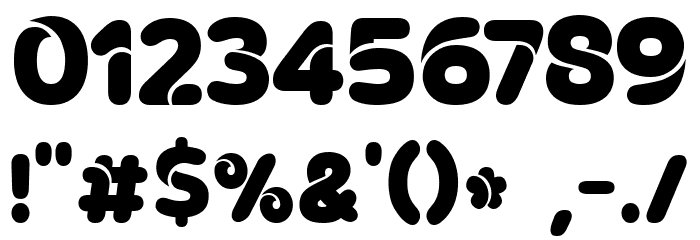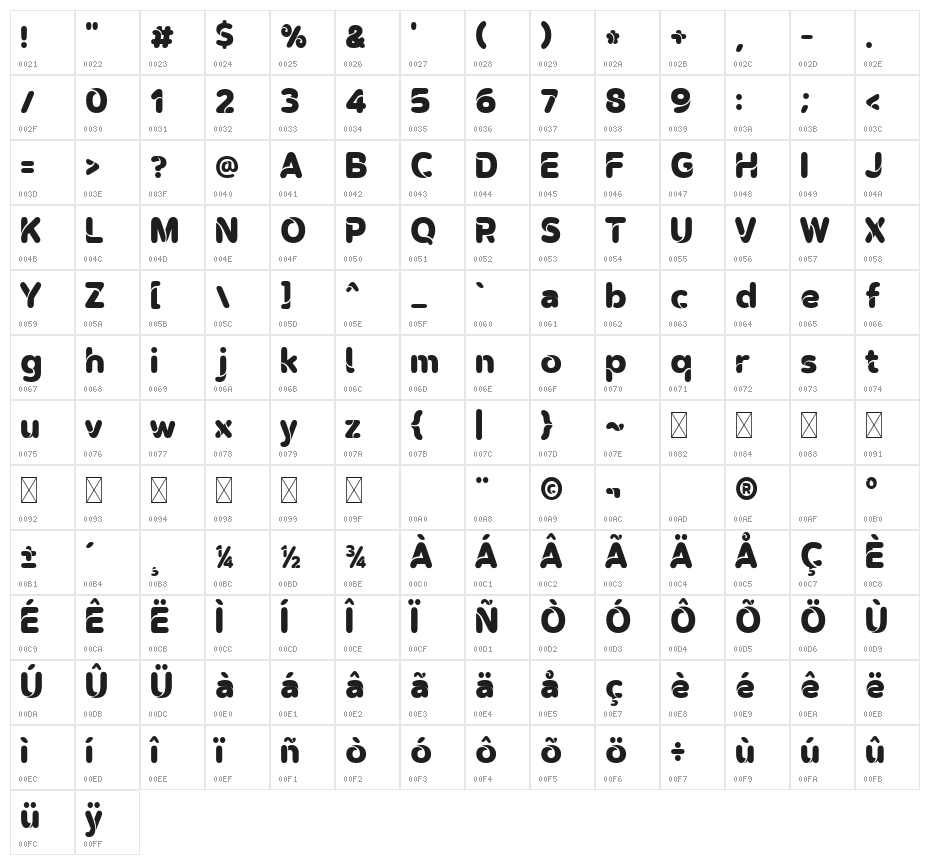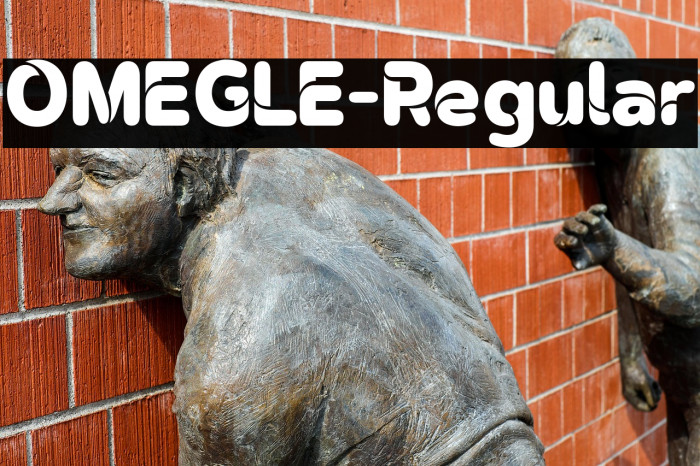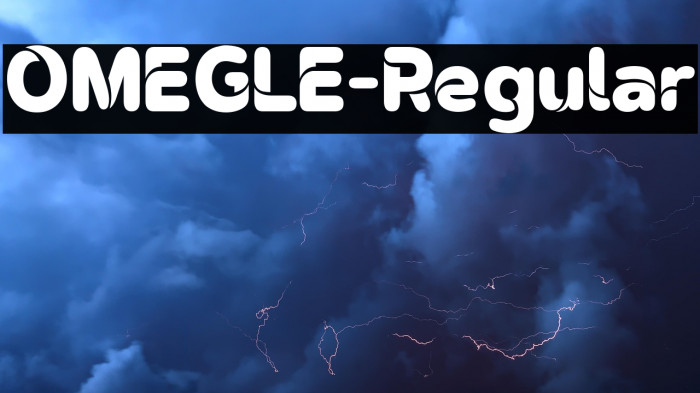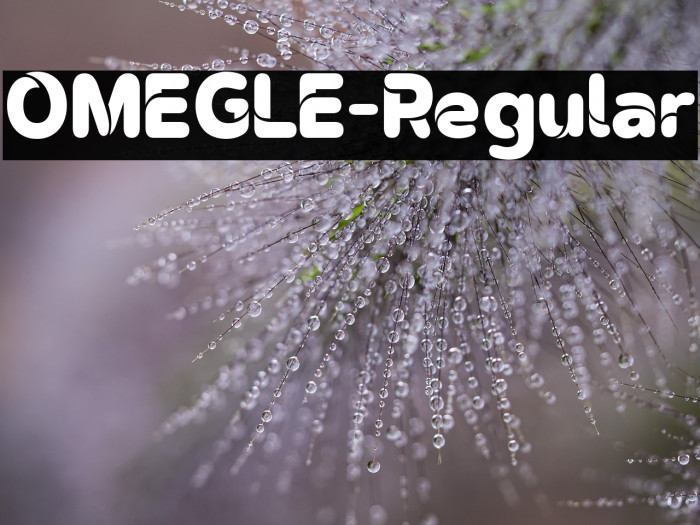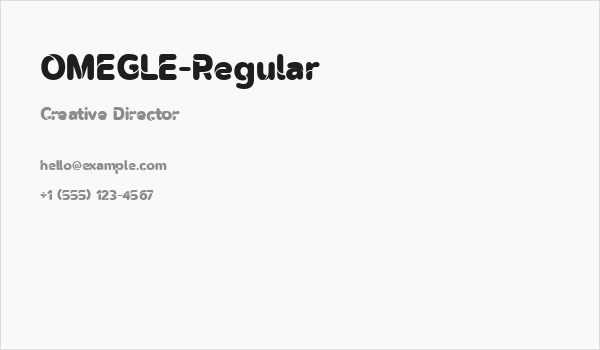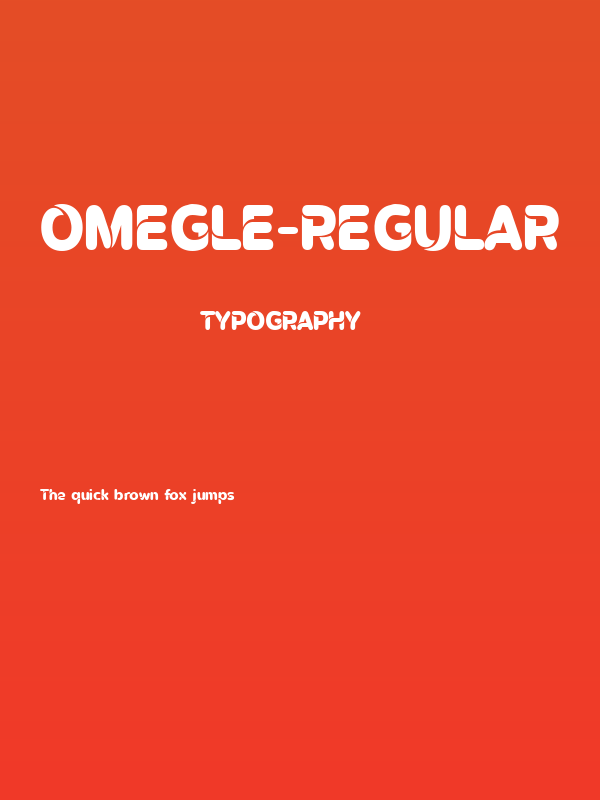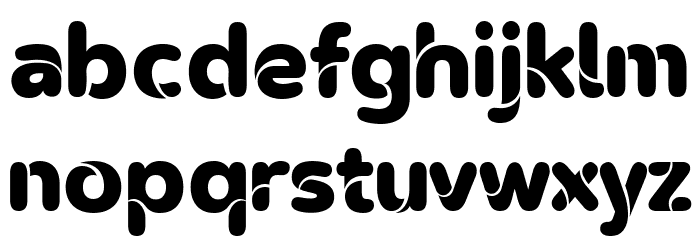
OMEGLE-Regular Font
OMEGLE-Regular Description
This font exhibits a bold and playful style with rounded, thick strokes that create a sense of warmth and approachability. The characters are well-balanced, with a consistent weight throughout, giving it a cohesive look. The rounded edges and smooth curves contribute to its friendly and modern appearance. The font maintains a uniform width, which enhances readability while adding a touch of uniqueness to each character. The numbers and special characters are designed with the same playful aesthetic, ensuring they blend seamlessly with the letters. This font is ideal for projects that require a fun and engaging visual impact.
| Proposed Projects | Ideal for children's books, playful branding, casual invitations, and creative posters. |